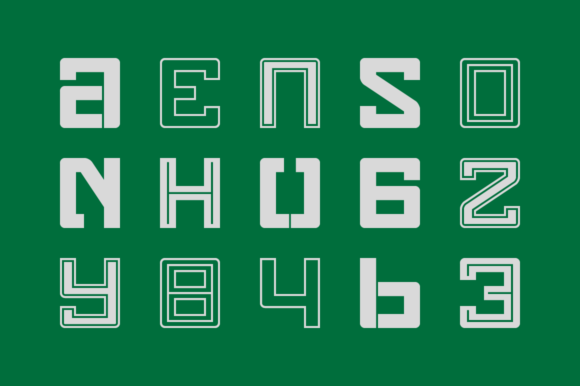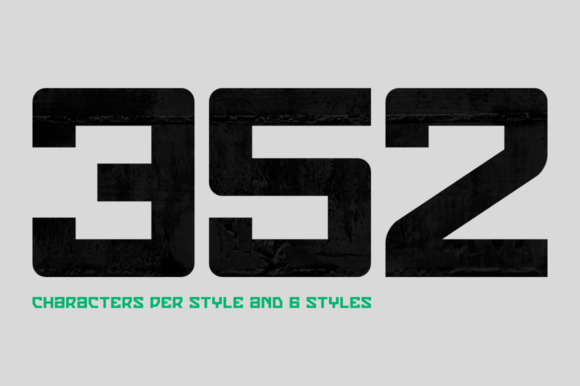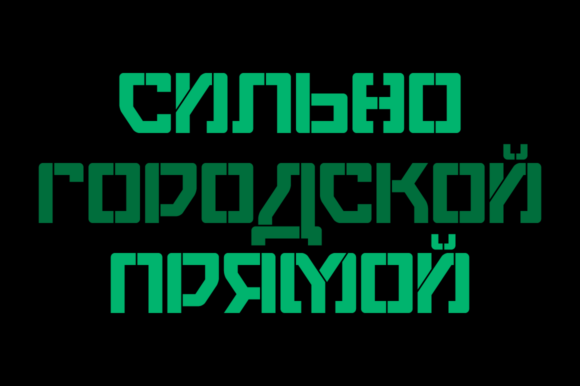
Eslava Family Font: A Geometric Angular Display Typeface
The Eslava Family Font is a stunning display typeface designed by Pablo Balcells in 2012 for Graviton Font Foundry. This font family boasts a geometric angular look, making it perfect for designers and crafters looking to add a touch of modernity to their projects. In this article, we’ll dive into the world of Eslava font, exploring its features, styles, and uses.
Design and Characteristics
The Eslava font family is characterized by its geometric and angular design. The font’s clean lines, precise curves, and sharp edges give it a modern and sleek appearance. This display typeface is perfect for headlines, titles, and short texts, where a bold and eye-catching font is required. The Eslava font family consists of 6 styles, offering a range of options for designers to choose from.
Styles and Variations
The Eslava font family includes 6 styles, which are:
- Eslava Light
- Eslava Regular
- Eslava Medium
- Eslava Bold
- Eslava ExtraBold
- Eslava Black
Each style offers a unique variation of the font, allowing designers to experiment with different weights and styles to create a visually appealing design.
Uses and Applications
The Eslava font family is ideal for a variety of design projects, including:
- Headlines and titles
- Digital displays and signage
The font’s geometric and angular design makes it perfect for designs that require a modern and edgy look.
Why Choose Eslava Font Family?
There are several reasons why designers and crafters should consider using the Eslava font family in their projects:
- Unique Design: The Eslava font family boasts a unique geometric and angular design that sets it apart from other font families.
- Versatility: The font family consists of 6 styles, making it versatile and suitable for a range of design projects.
- Modern Look: The Eslava font family has a modern and sleek appearance, making it perfect for designs that require a contemporary look.
- Easy to Read: Despite its geometric and angular design, the Eslava font family is easy to read, making it suitable for body text and short paragraphs.
In conclusion, the Eslava font family is a stunning display typeface that offers a unique geometric and angular look. With its 6 styles and versatile design, it’s perfect for designers and crafters looking to add a touch of modernity to their projects. Whether you’re designing a logo, poster, or digital display, the Eslava font family is definitely worth considering.
Here are some tips and tricks for using the Eslava font family:
- Experiment with different styles: Try out different styles and weights to create a visually appealing design.
- Pair with other fonts: Pair the Eslava font family with other fonts to create a unique and interesting design.
- Use for headlines and titles: Use the Eslava font family for headlines and titles to add a touch of modernity to your design.